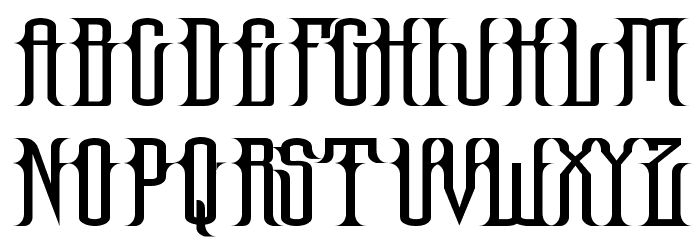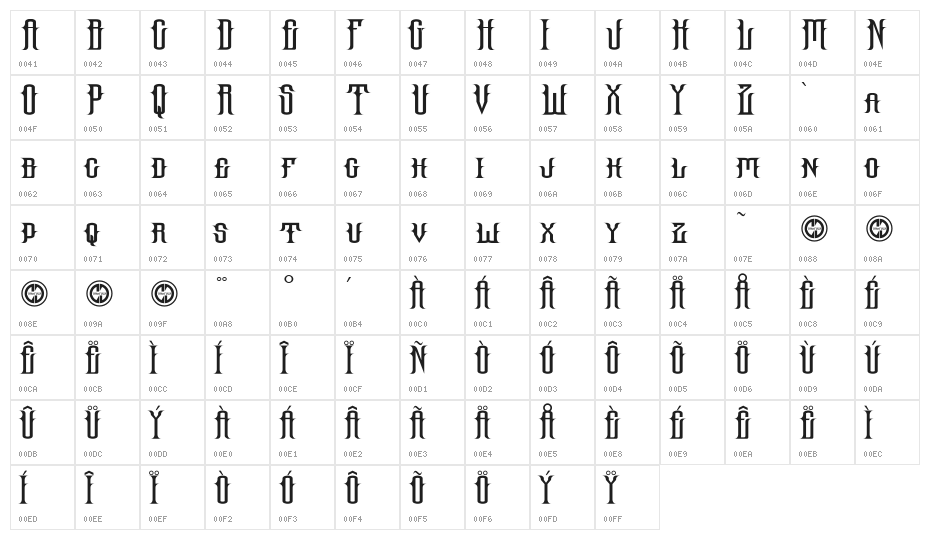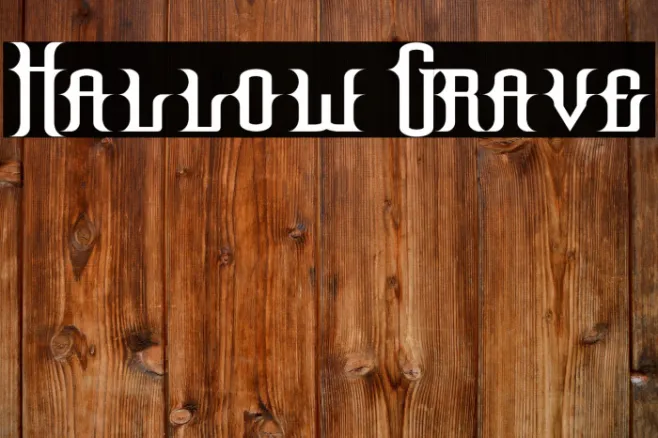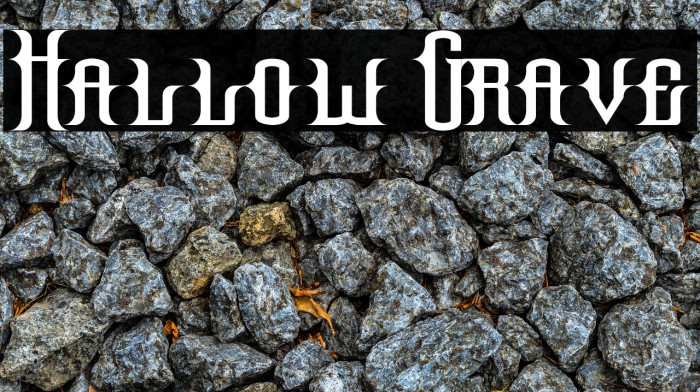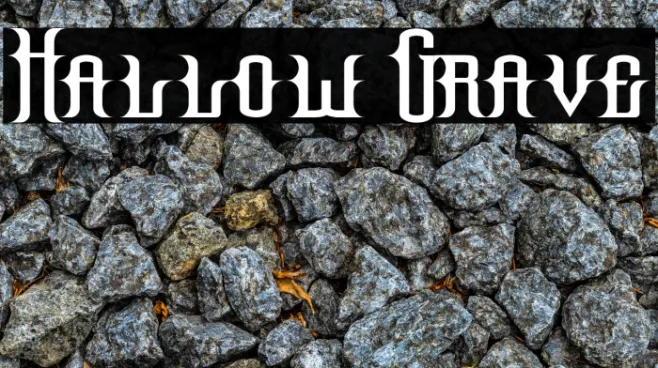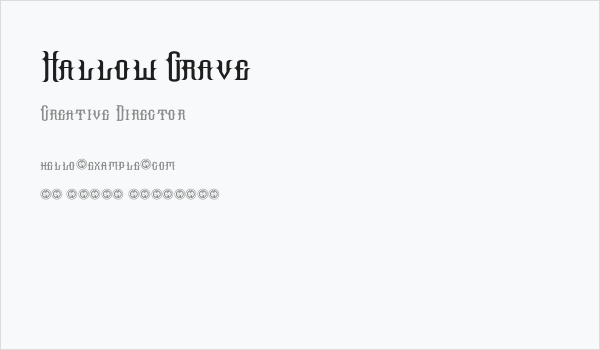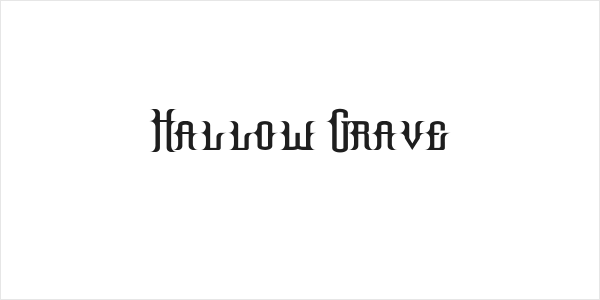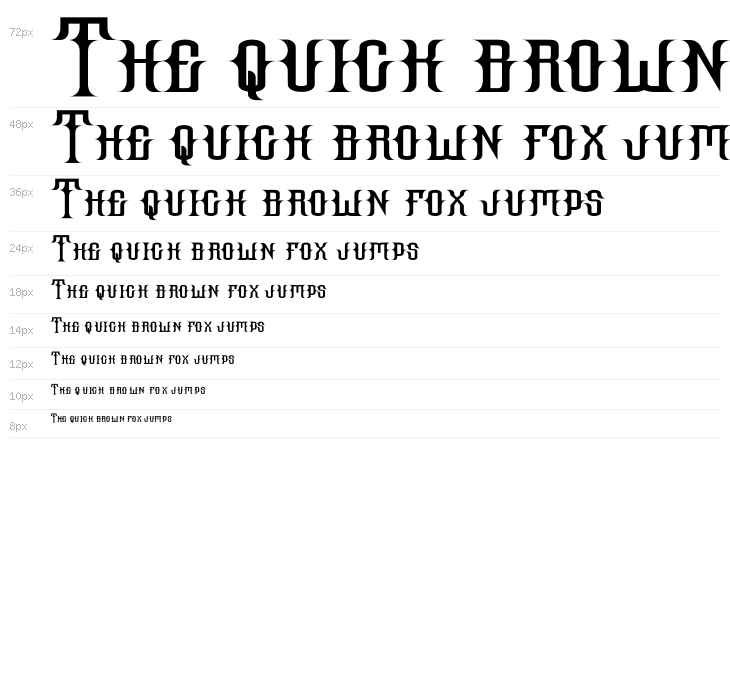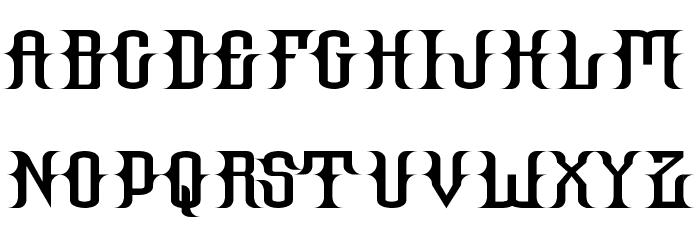
Hallow Grave Font
Hallow Grave Description
This font features a bold, decorative style with a gothic influence, characterized by its sharp, angular serifs and high contrast between thick and thin strokes. The uppercase letters are particularly striking, with elongated vertical lines and intricate detailing that give the font a dramatic and imposing appearance. The lowercase letters maintain the same stylistic elements, ensuring consistency throughout. The numerals and special characters are designed to match the overall aesthetic, making this font suitable for projects that require a bold and memorable visual impact.
| Overall Style | Gothic, Decorative |
| Proposed Projects | Ideal for Halloween-themed designs, posters, album covers, and branding that requires a dramatic and gothic touch. |